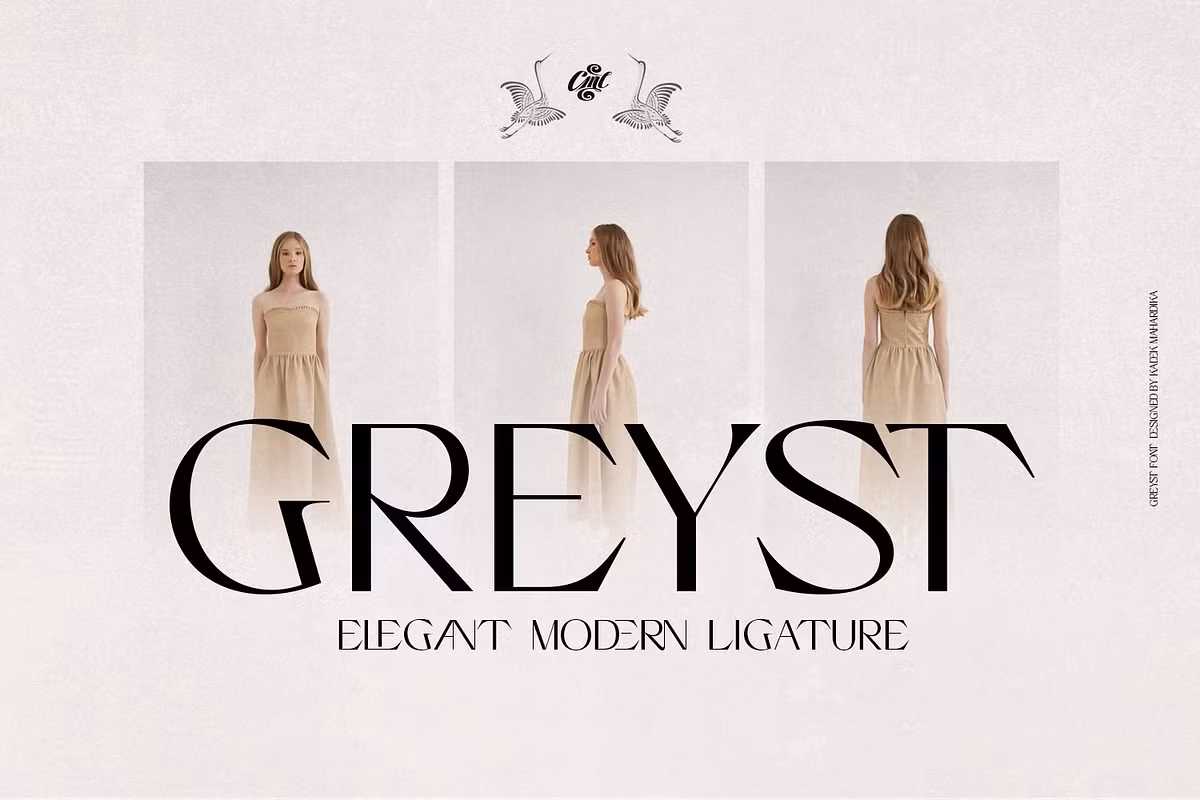
Greyst – Exotic Modern Font Free Download is a striking and elegant typeface that blends bold modern design with exotic, high-fashion flair. Featuring stylish curves, sharp contrast, and unique letterforms, Greyst is perfect for luxury branding, editorial layouts, beauty packaging, fashion campaigns, and upscale logo design.
Crafted to command attention while exuding refinement, Greyst Free Download includes alternates and ligatures for elevated customization. Its contemporary yet artistic vibe makes it ideal for projects that require both creativity and sophistication.